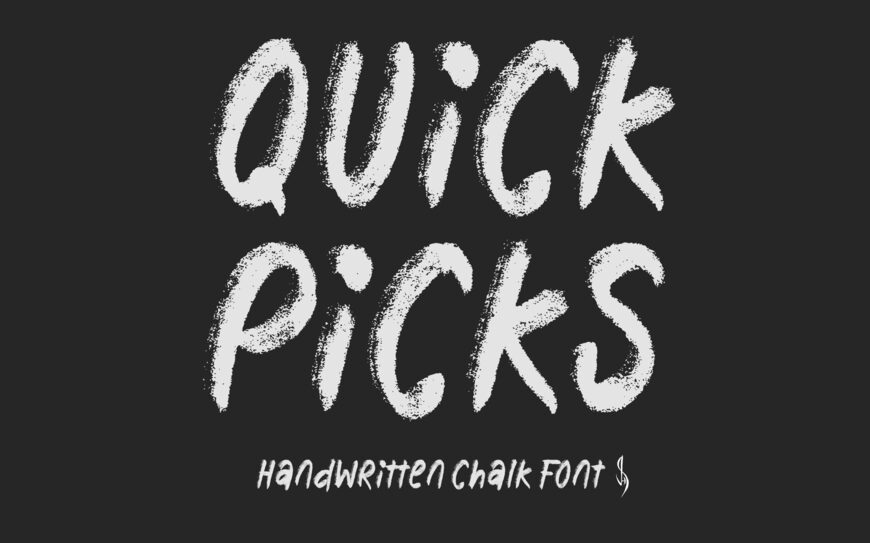
Quick Picks is a bold, high-energy hand-brushed font made with a round marker style. Featuring raw, textured stroke movement and all-caps letterforms, it delivers a loud, action-packed graphic style. Its punchy street aesthetic makes it ideal for bold headlines, streetwear designs, sports logos, merchandise, and eye-catching social media graphics.